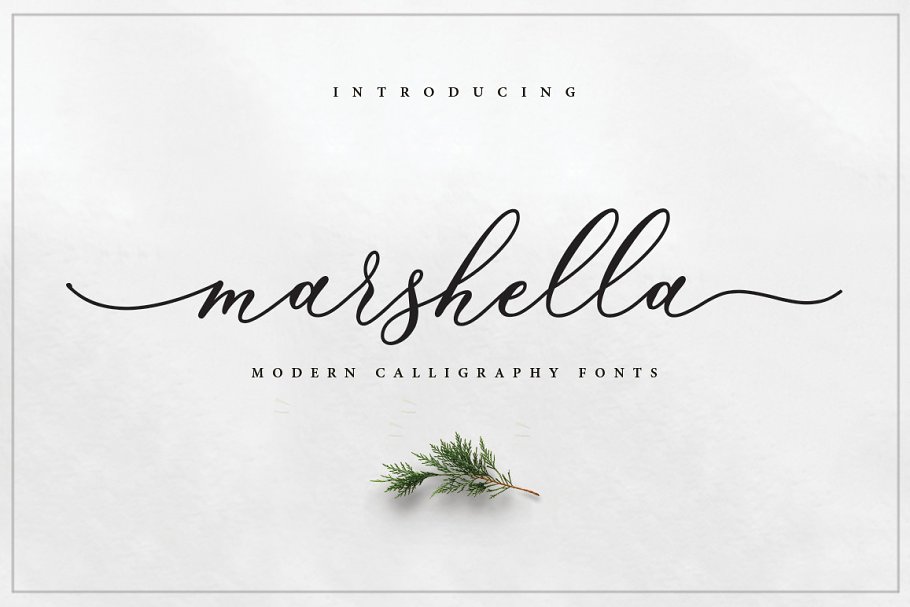
Are you tired of using the same old fonts for your website headings? Look no further than Marshella, the best font for website headings! Created by the talented Faisal Tanjung, Marshella is a modern calligraphy font that will elevate the look of any project.
With its elegant style and full set of lower and uppercase letters, Marshella is perfect for a variety of uses. Use it for your website header, logotype, fashion design, or even your wedding card design. The possibilities are endless!
One of the unique features of Marshella is the 200+ alternate glyphs it includes. This means you can customize your design even further, making it truly unique and eye-catching. Plus, with multilingual support for languages such as Danish, Finnish, Spanish, and more, Marshella is versatile enough to use for any project, no matter the language.